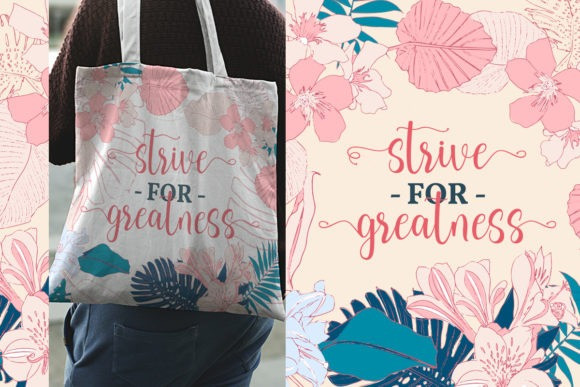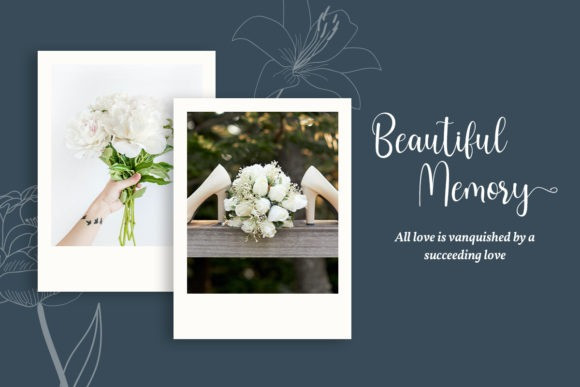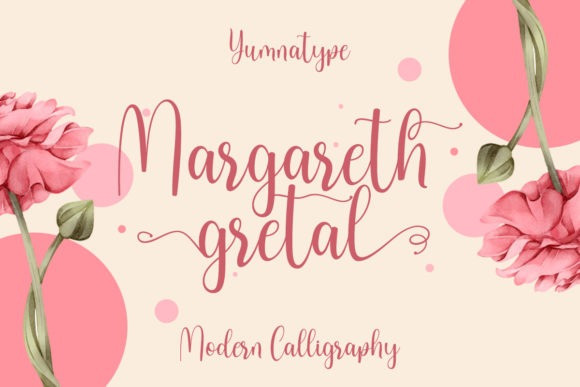
Margareth Gretal Script Font
Margareth Gretal is an elegant and flowing handwritten font. It is PUA encoded which means you can access all of the glyphs and swashes with ease! It features a varying baseline, smooth lines, gorgeous glyphs and stunning alternates. It maintains its classy calligraphic influences while feeling contemporary and fresh. Fall in love with this font and bring your projects to the highest levels!